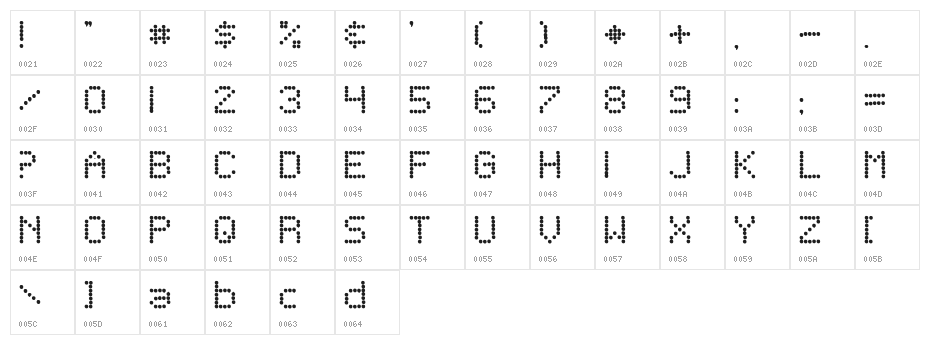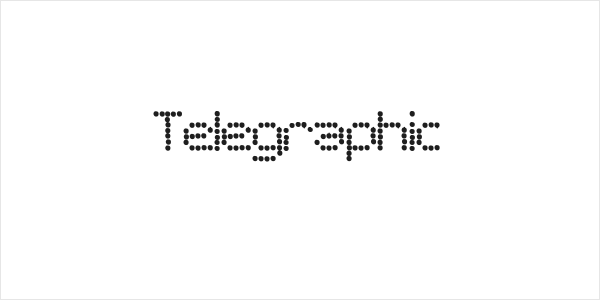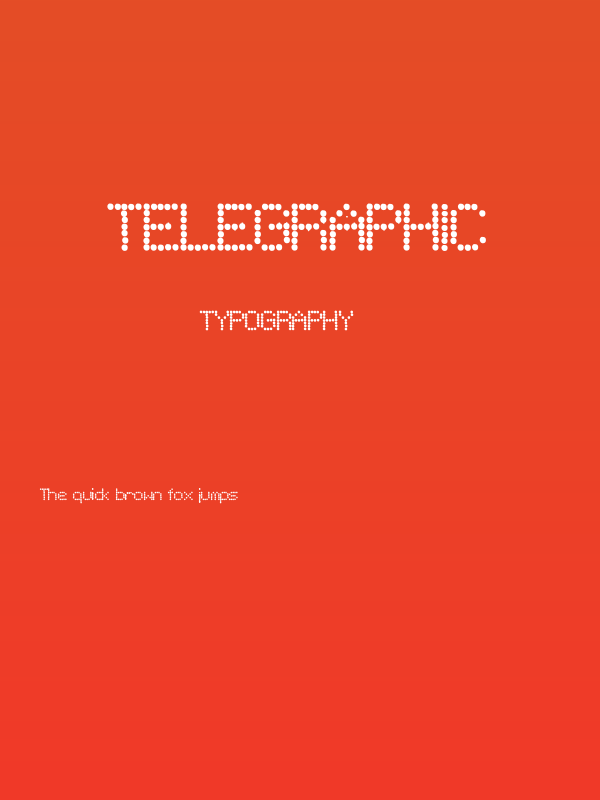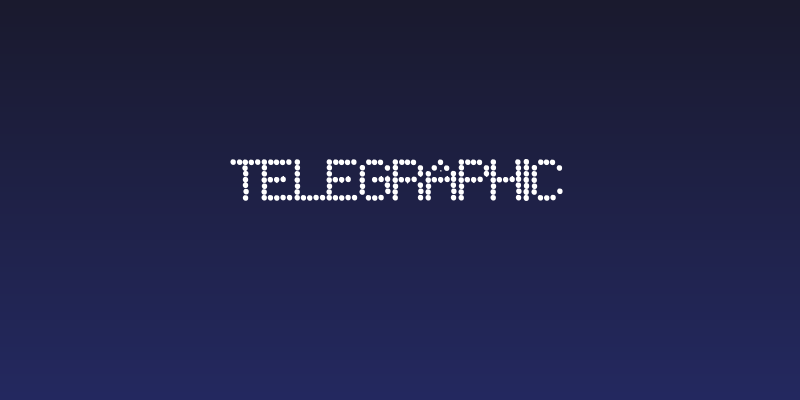
Telegraphic Font
Telegraphic Description
This font features a unique dot matrix style, reminiscent of old telegraph or digital display systems. Each character is constructed from a series of evenly spaced dots, creating a pixelated effect that is both retro and modern. The uniformity of the dots provides a consistent texture across all characters, while the geometric arrangement ensures legibility. This design is particularly striking in larger sizes where the dot pattern becomes a prominent visual element. The font includes a full set of uppercase and lowercase letters, numbers, and a variety of special characters, making it versatile for various applications.
| Overall Style | Retro, Digital |
| Proposed Projects | Ideal for projects that require a vintage digital look, such as retro-themed designs, digital art, or technology-related branding. |